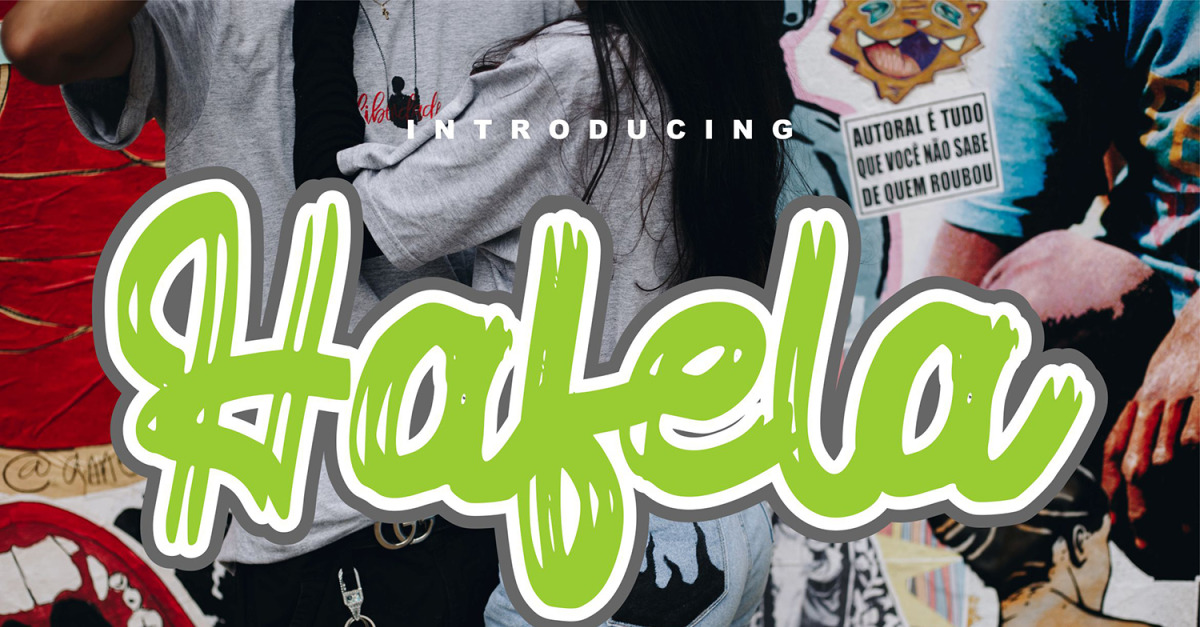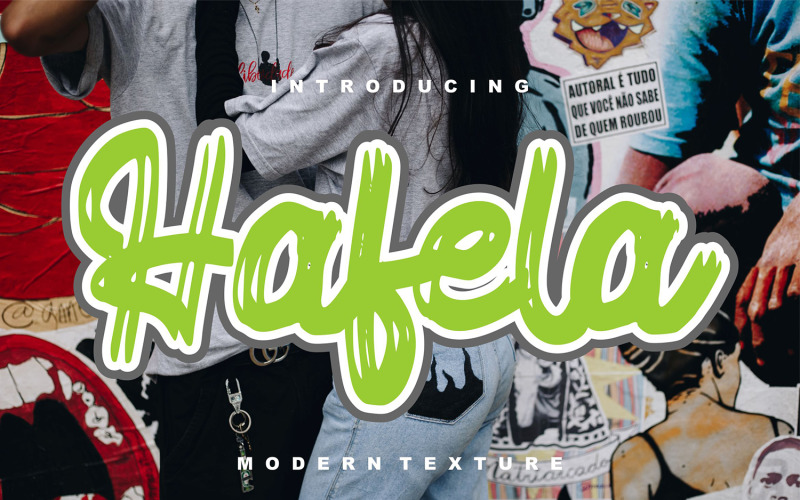
Hafela | Modern Texture Cursive Font
**Hafela | Modern Texture Script Font** with a calligraphy style, So beautiful on invitation like greeting cards, branding materials, business cards, quotes, posters, and more!